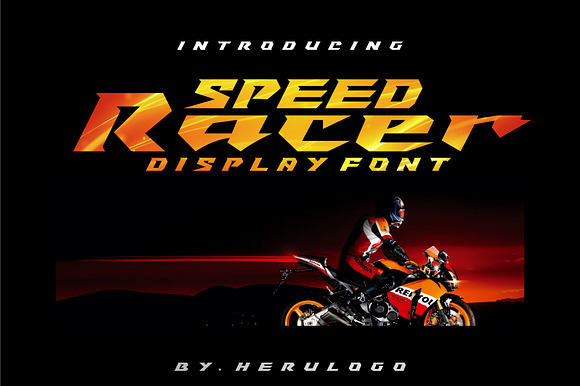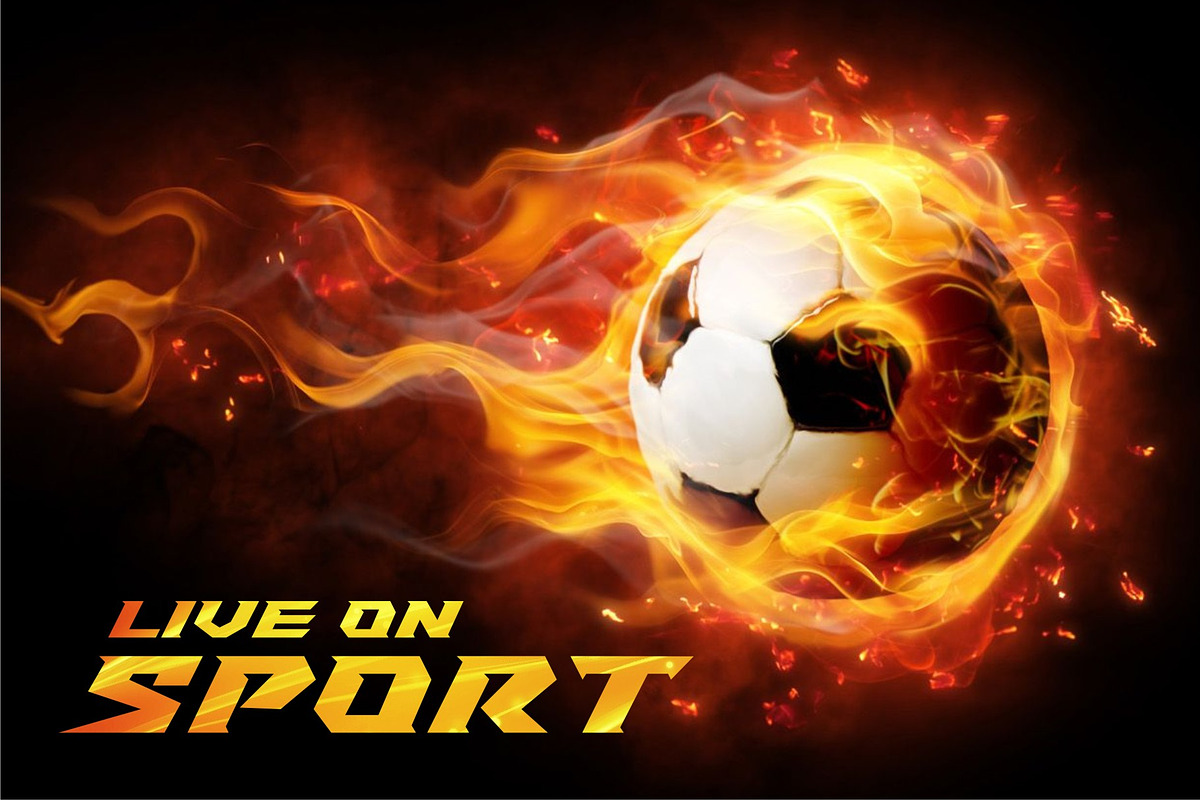
Speed Racer Display Font
Looking Sporty font? here we have a unique display font for your brand. Speed/fast and Super for this Speed racer display font.
Why Speed Racer Display Font is worth a look
Speed Racer Display Font by herulogo fits naturally into Branding, posters, packaging, typography.